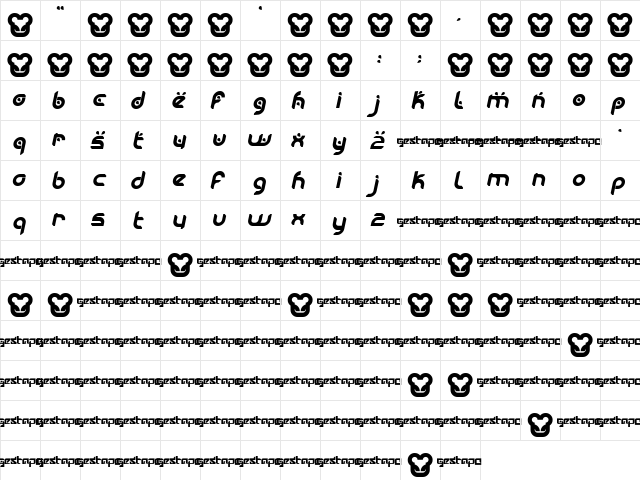
Moogwai Italic
Design Context for Moogwai Typeface
Moogwai offers clean, dependable letterforms without strong stylistic allegiance, making it a practical choice for designers who need flexibility. Its italic angle brings a sense of urgency and motion to the letterforms.
Pro Tip: Try Moogwai for annotation and caption copy alongside an upright companion — the contrast in angle creates a dynamic but ordered typographic system.